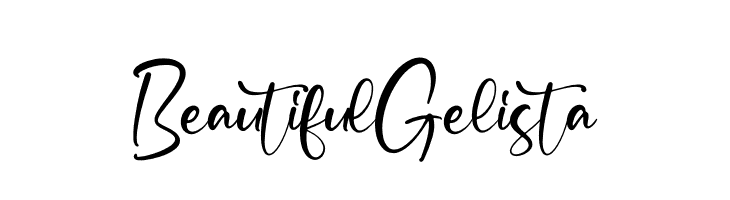
A playful, hand-drawn font with a textured, whimsical style.
A playful and elegant script font with a handwritten feel.
An elegant script font with flowing cursive and decorative flourishes.
A flowing, cursive font with elegant loops and swirls.
A playful and artistic script font with a modern twist, featuring smooth, flowing strokes.
A bold, flowing script font with elegant curves and a handwritten aesthetic.
A graceful and elegant cursive font with flowing, ornate lines.
A flowing, elegant handwritten font with a modern yet classic appeal.
A playful, handwritten font with a casual and elegant style.